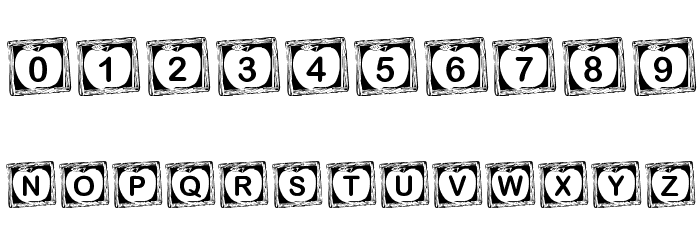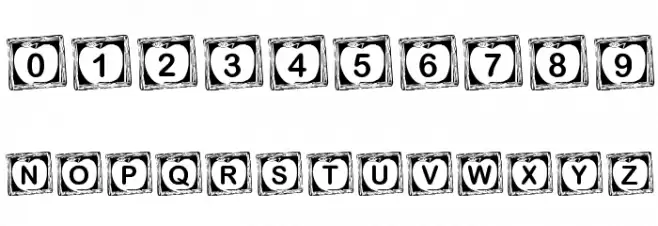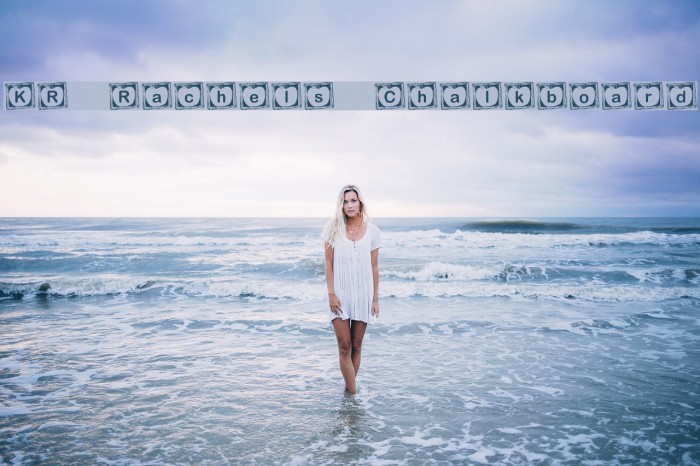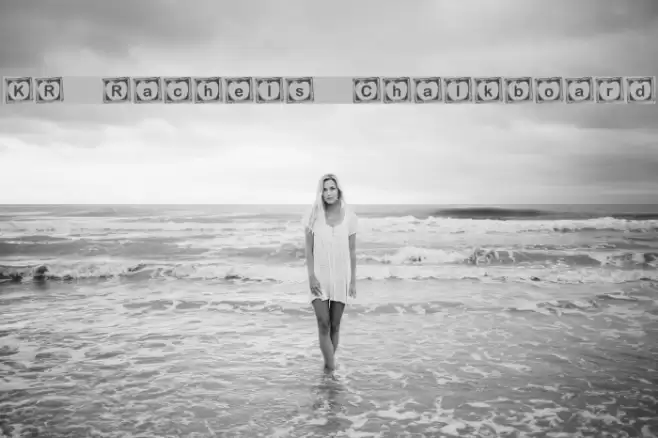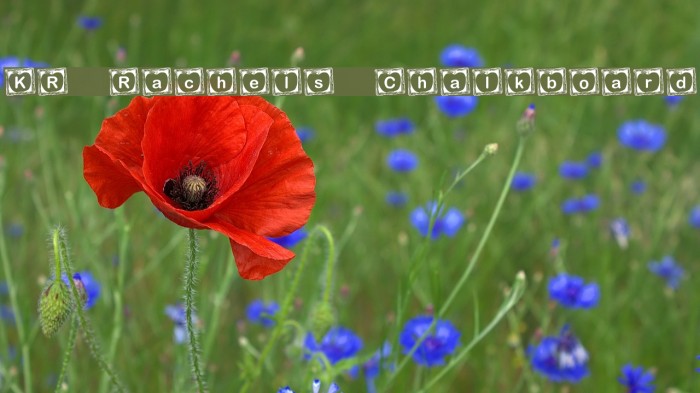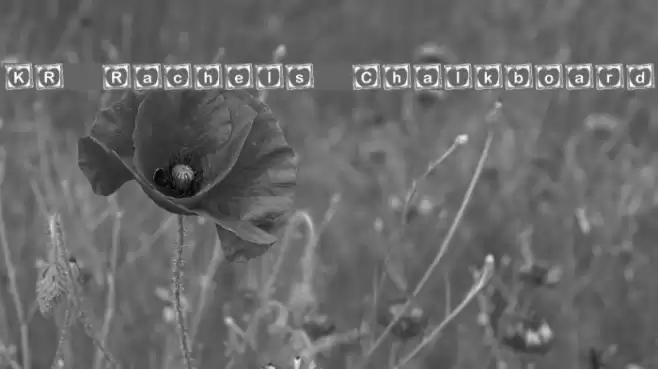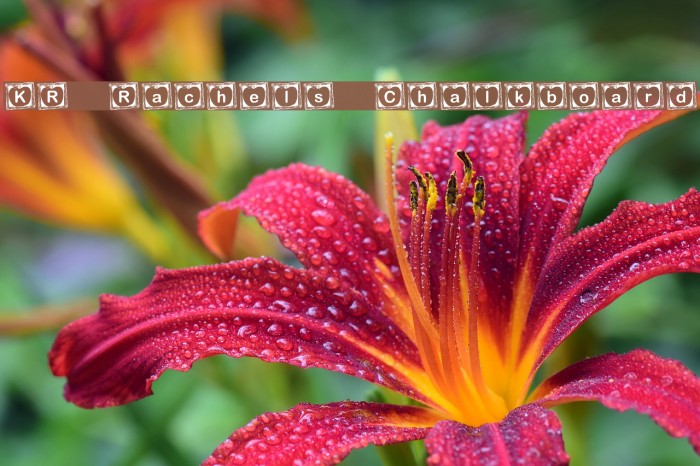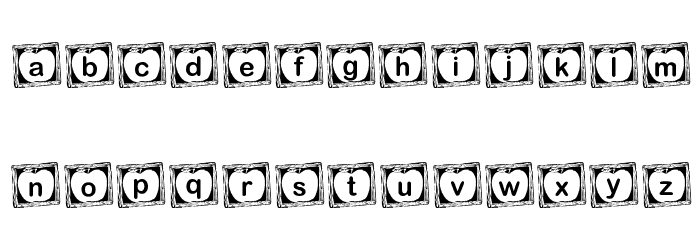
KR Rachel's Chalkboard Font
KR Rachel's Chalkboard Description
This font features a playful and decorative style, reminiscent of chalkboard writing. Each character is enclosed in a square with a textured border, giving it a unique and artistic appearance. The letters are bold and clear, making them easy to read while maintaining a whimsical charm. The uppercase and lowercase letters are consistent in style, with rounded edges and a slightly informal feel. The numbers and special characters follow the same design, ensuring uniformity across all elements. This font is perfect for projects that require a fun and engaging aesthetic.
| Proposed Projects | Ideal for educational materials, children's books, playful branding, and creative posters. |